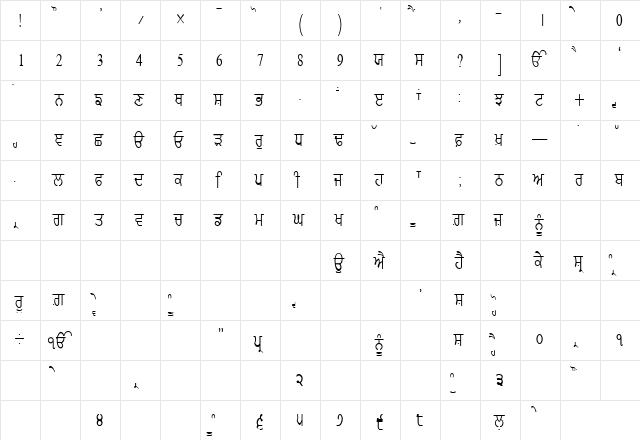
GurmukhiLys 020 Condensed Normal
Design Context for GurmukhiLys 020 Condensed Typeface
GurmukhiLys 020 Condensed is a composed and adaptable typeface that performs quietly and consistently across a wide range of design contexts. Its narrow stance lets it pack a punch even in space-constrained designs.